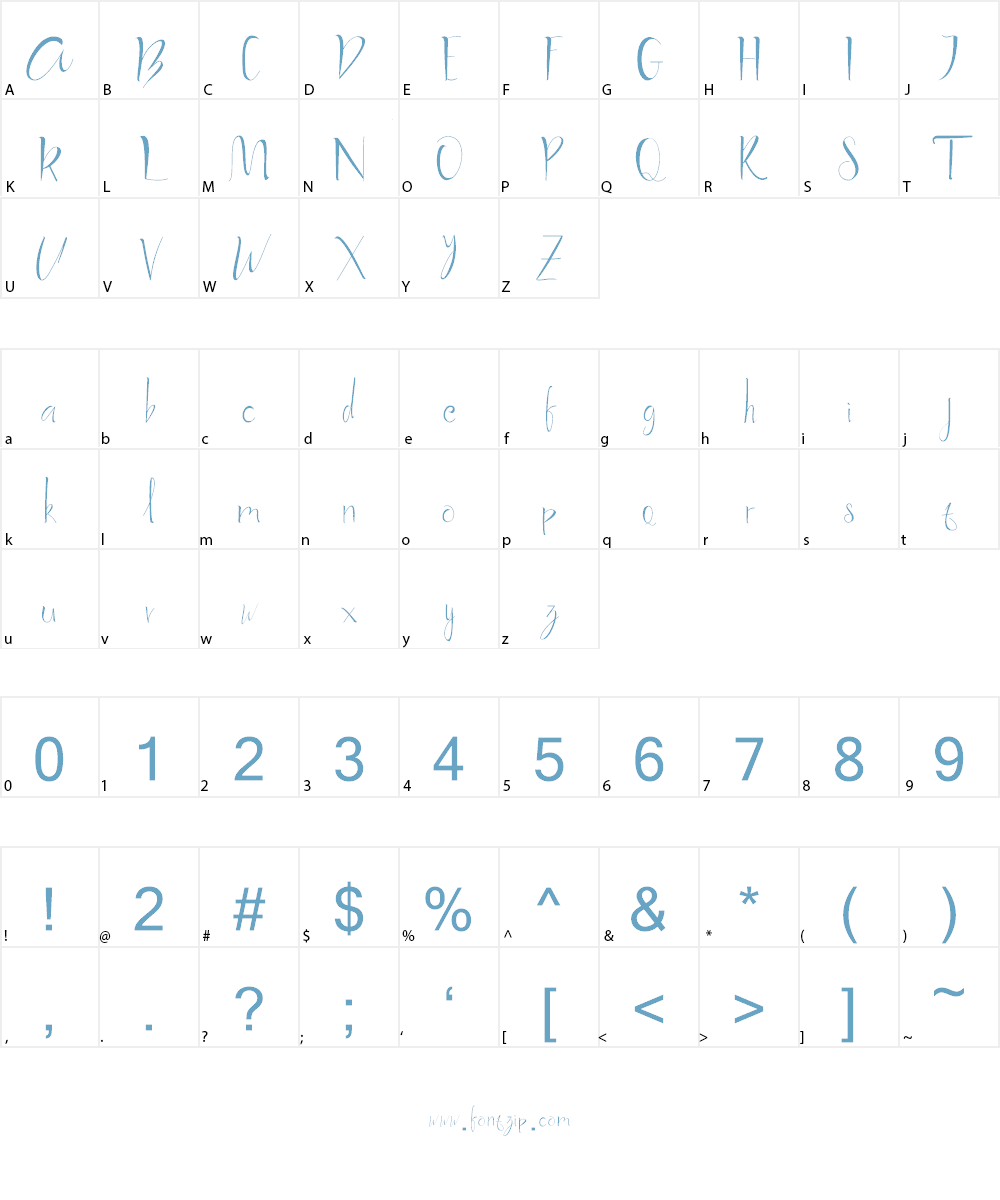
Hi, friend . Next time I make a font with a handwritten theme. This font is named Kirani. pretty name is not a font. the beauty of the name is also in harmony with the beauty of the font shape. This font is very suitable for use in any case. for logos, business cards, thanks, invitations or others